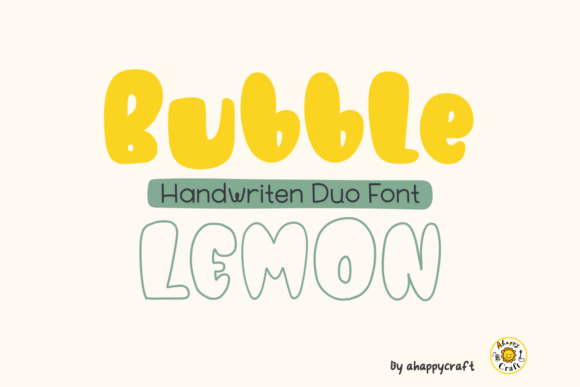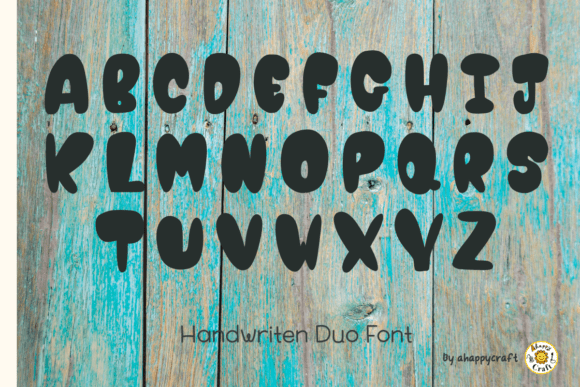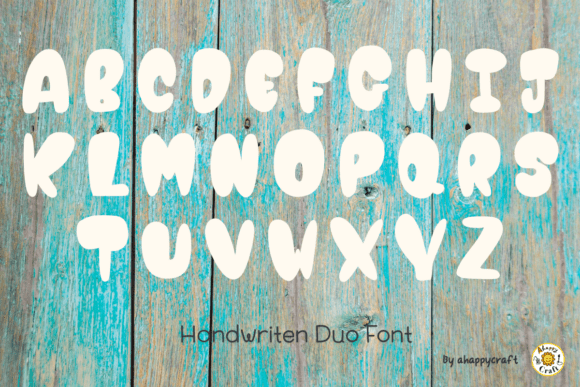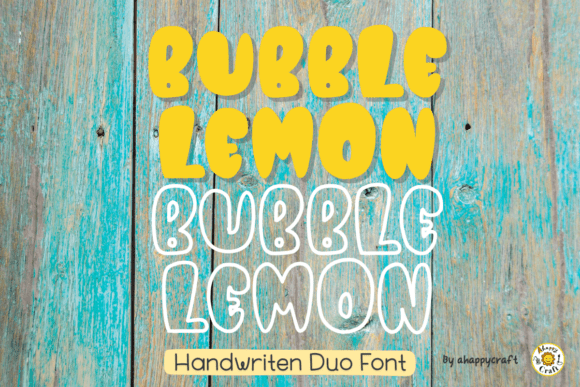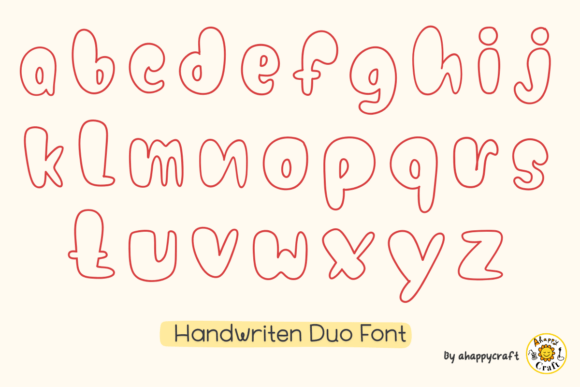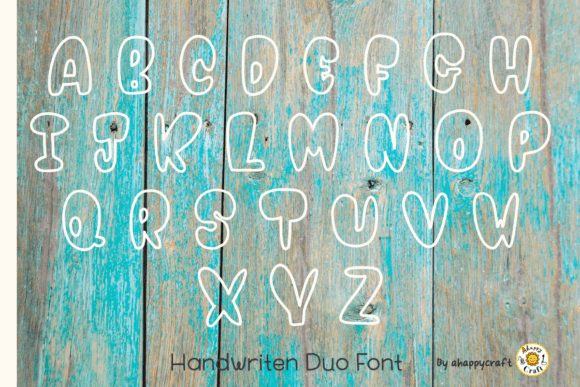
The Sweet Spot: Discovering the Charm of Bubble Lemon Font
I’ll never forget the time I was working on a project for a client’s lemonade stand logo. I had all the design elements in place – the colors, the illustrations, the overall vibe – but something was missing. The font I was using just wasn’t cutting it. It was too bland, too boring, and just didn’t capture the fun and playful spirit of a refreshing glass of lemonade on a summer day. That’s when I stumbled upon Bubble Lemon Font, and let me tell you, it was love at first sight! 💕
Bubble Lemon Font has quickly become one of my go-to fonts for a variety of design projects. Here’s what I love about it:
- ✨ Sweet and Friendly: Bubble Lemon Font has a natural and unique style that’s perfect for creating eye-catching displays and titles.
- ✅ Versatile: This font can be used for a wide range of designs, from kid-friendly projects to more sophisticated branding.
- 🌈 Colorful Personality: The font’s playful vibe makes it perfect for designs that need a pop of fun and whimsy.
Of course, no font is perfect, and Bubble Lemon has a few quirks:
- 🤔 Legibility at Small Sizes: While the font looks amazing at larger sizes, it can be a bit tricky to read at smaller sizes. Be sure to test it out before committing to a specific size.
- ⚠️ Limited Formality: Bubble Lemon Font is a display font, and as such, it’s not the best choice for body text or more formal designs.
- Experiment with the font’s OpenType features, like glyphs and stylistic alternates, to add some extra flair to your design.
The Story Behind Bubble Lemon Font
Legend has it that the designer behind Bubble Lemon Font was inspired by the simple joys of childhood – summertime, lemonade stands, and carefree laughter. They set out to create a font that captured the essence of those happy memories, and Bubble Lemon was born. With its unique blend of playfulness and charm, it’s no wonder this font has become a favorite among designers and crafters alike!
Q: What type of designs is Bubble Lemon Font best suited for?
A: Bubble Lemon Font is perfect for designs that need a playful, whimsical touch – kid-friendly projects, lemonade stand logos, and other fun, creative endeavors.
Q: Is Bubble Lemon Font available in different weights or styles?
A: Currently, Bubble Lemon Font is available in a single weight, but it’s versatile enough to work well in a variety of design contexts.